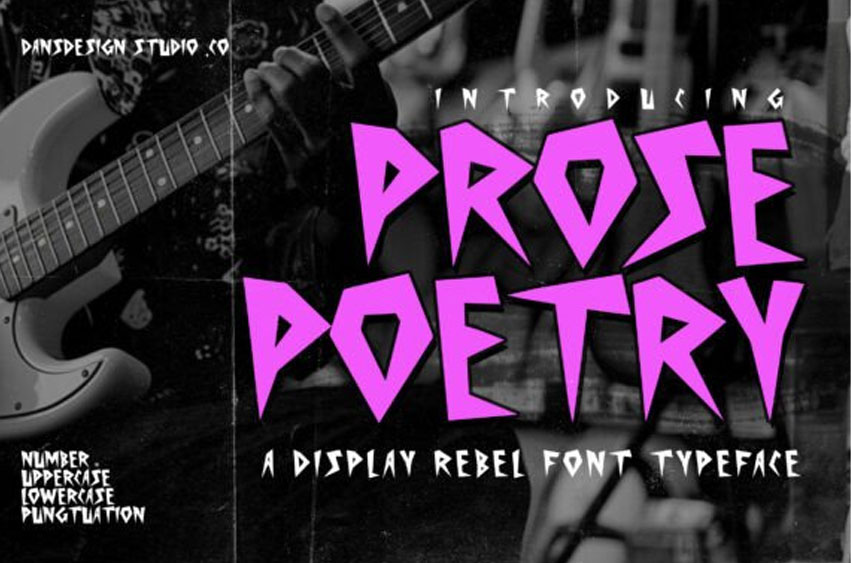
Prose Poetry Font is a bold, edgy typeface built for chaos, rebellion, and raw energy.
Inspired by punk rock, black metal, and underground zine culture, this display font delivers sharp, jagged strokes with an aggressive edge — perfect for projects that push boundaries.